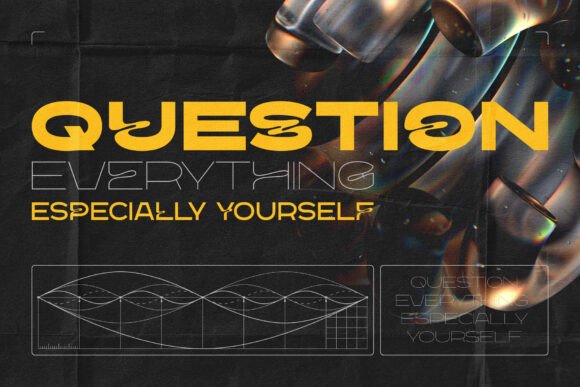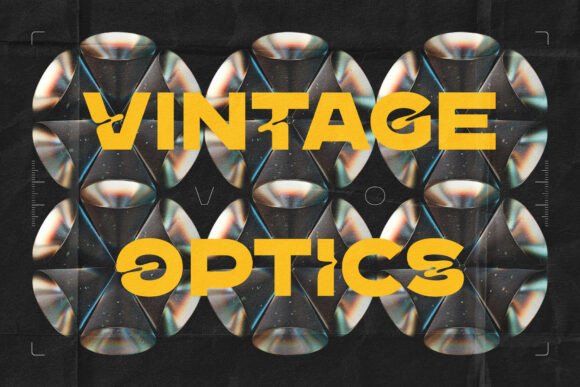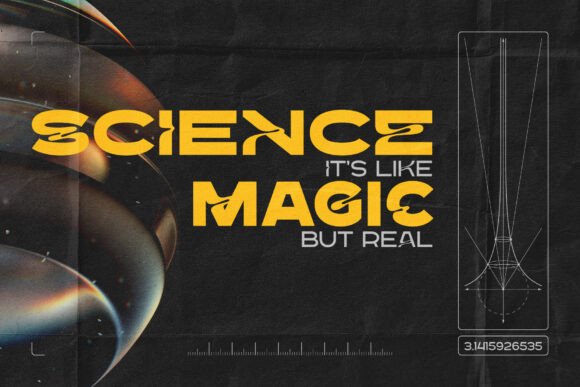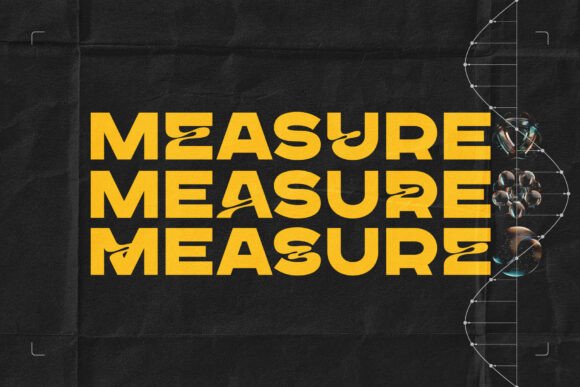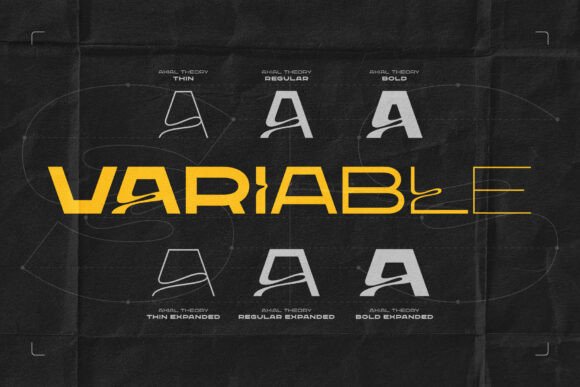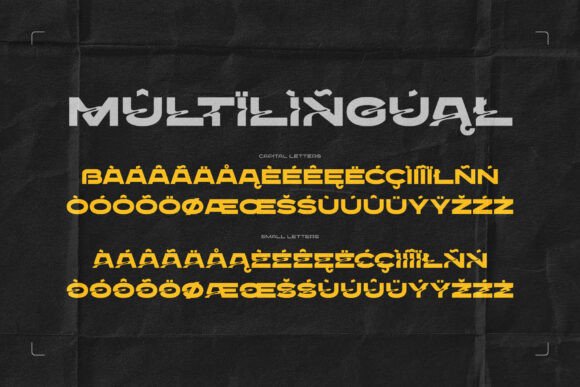
Unlocking the Secrets of Axial Theory Font
There’s something magical about discovering a new font that sparks your creativity. The moment you lay eyes on it, you know exactly how it will elevate your next project. For us, that moment came with Axial Theory Font – a retrofuturistic type family that’s about to become your new go-to.
Axial Theory Font is more than just a stylish addition to your design arsenal. It’s a versatile tool that will help you create unique and captivating visual stories. With three weights, three width variations, and an infinitely flexible variable font, the possibilities are endless. Whether you’re working on a futuristic sci-fi novel or a nostalgic poster, this font set has got you covered.
What sets Axial Theory Font apart is its unique ability to adapt to any project. The nicely curved letterforms bring an original vibe to your text, while the simple and creative versions of each letter offer endless possibilities for experimentation. With multilingual support and a wide range of characters, this font is a valuable addition to any designer’s toolkit.
- Font Family: Axial Theory Font is a custom-designed font family that includes multiple weights and styles, offering a wide range of typographic options.
- Character Set: The font includes a comprehensive character set, covering Latin, Cyrillic, and Greek alphabets, as well as a range of punctuation and special characters.
- Unique Characteristics: Axial Theory Font features a unique, hand-crafted aesthetic, with subtle irregularities and nuances that give it a distinctive, humanistic feel.
Axial Theory Font Review
Overall, I think the Axial Theory Font has some great features that make it a solid choice for certain projects. ✨ Here are some things that work well:
- The font has a clean and modern aesthetic, making it suitable for tech-related projects or websites that require a sleek look.
- The font family is quite extensive, offering a range of weights and styles that can be easily mixed and matched.
- The font is highly legible, even at smaller font sizes, which is essential for web and digital applications.
However, there are some limitations to consider ⚠️:
- The font lacks a strong personality or unique character, which may make it blend in with other fonts too much.
- The font may not be the best choice for projects that require a lot of texture or visual interest, as it is relatively flat and simple.
- The font family is not optimized for certain languages, which may lead to layout issues or poor text rendering.
In conclusion, the Axial Theory Font is a solid, no-frills font that can get the job done. While it may not be the most exciting or unique font out there, it is reliable and easy to work with. If you’re looking for a clean, modern font for a specific project, the Axial Theory Font is definitely worth considering.
Axial Theory Font is ideal for creating modern and minimalist designs. Use it for:
- Body text for reports and articles
- Branding and logo designs
For optimal results, pair Axial Theory Font with clean and simple backgrounds, and use it in combination with other modern fonts.